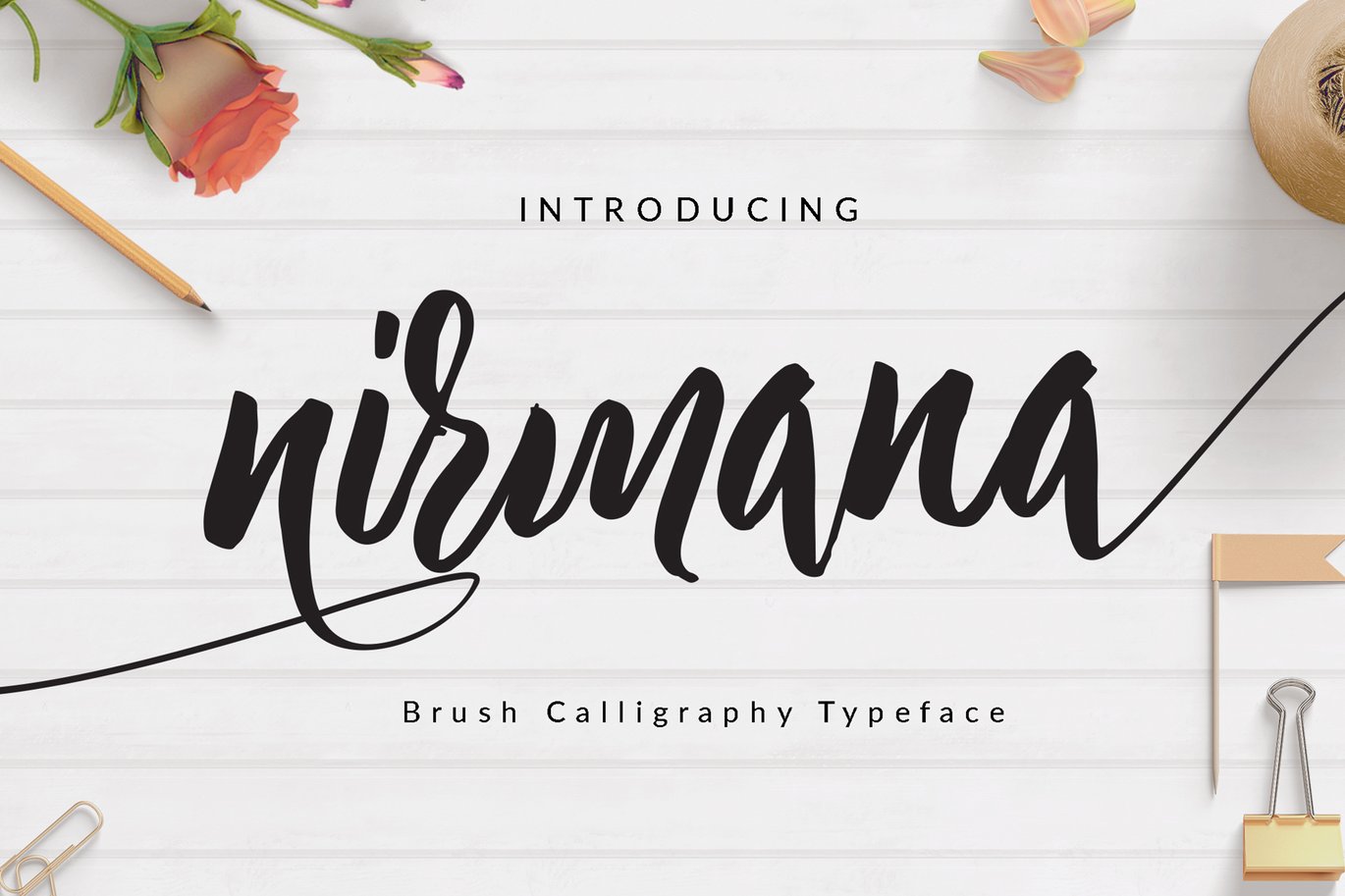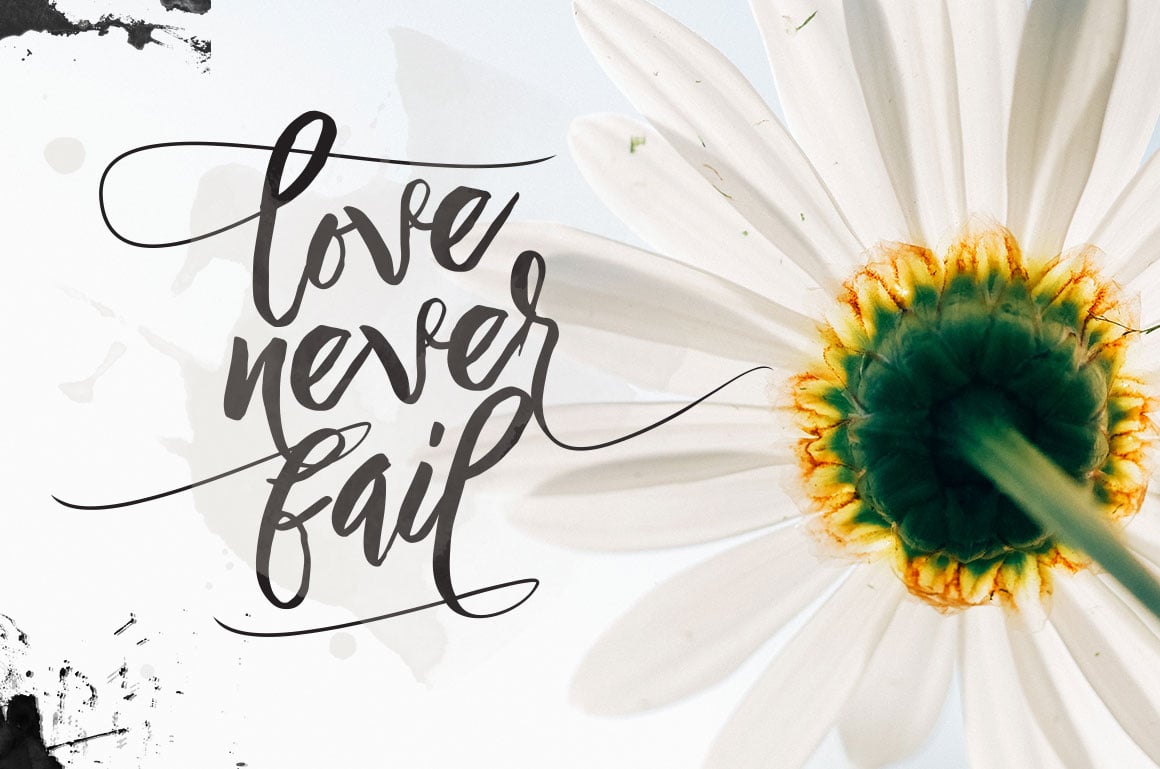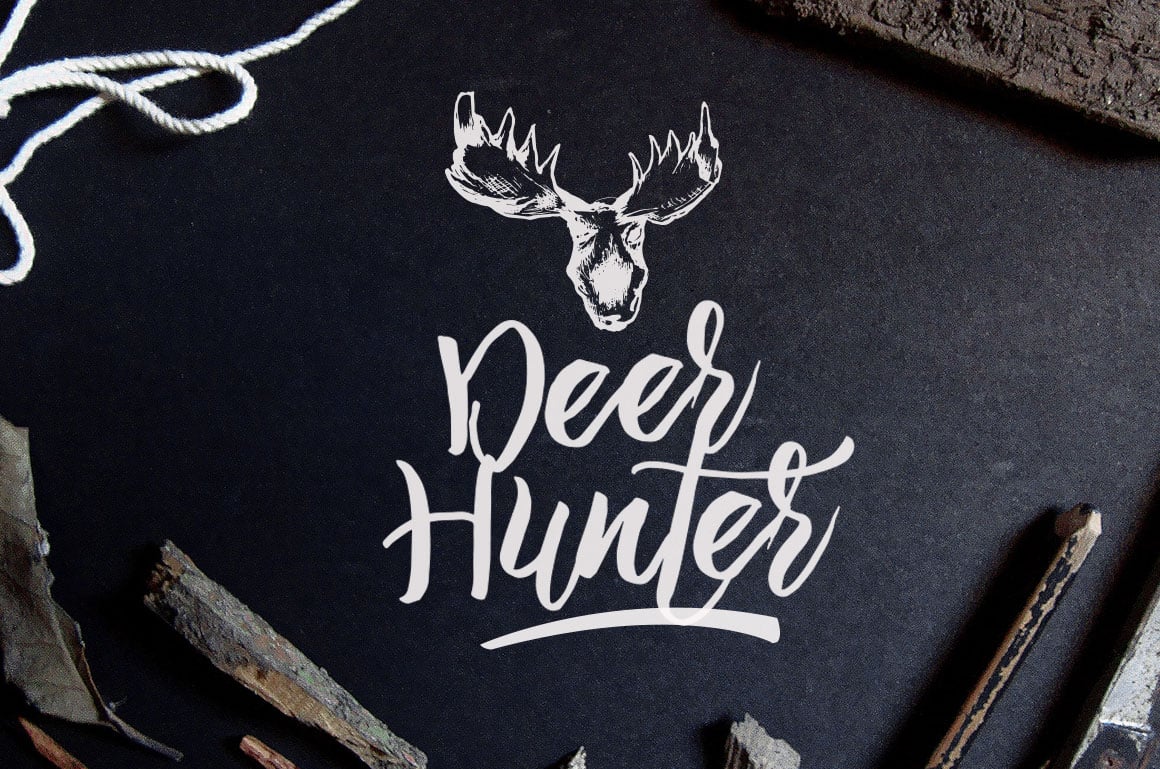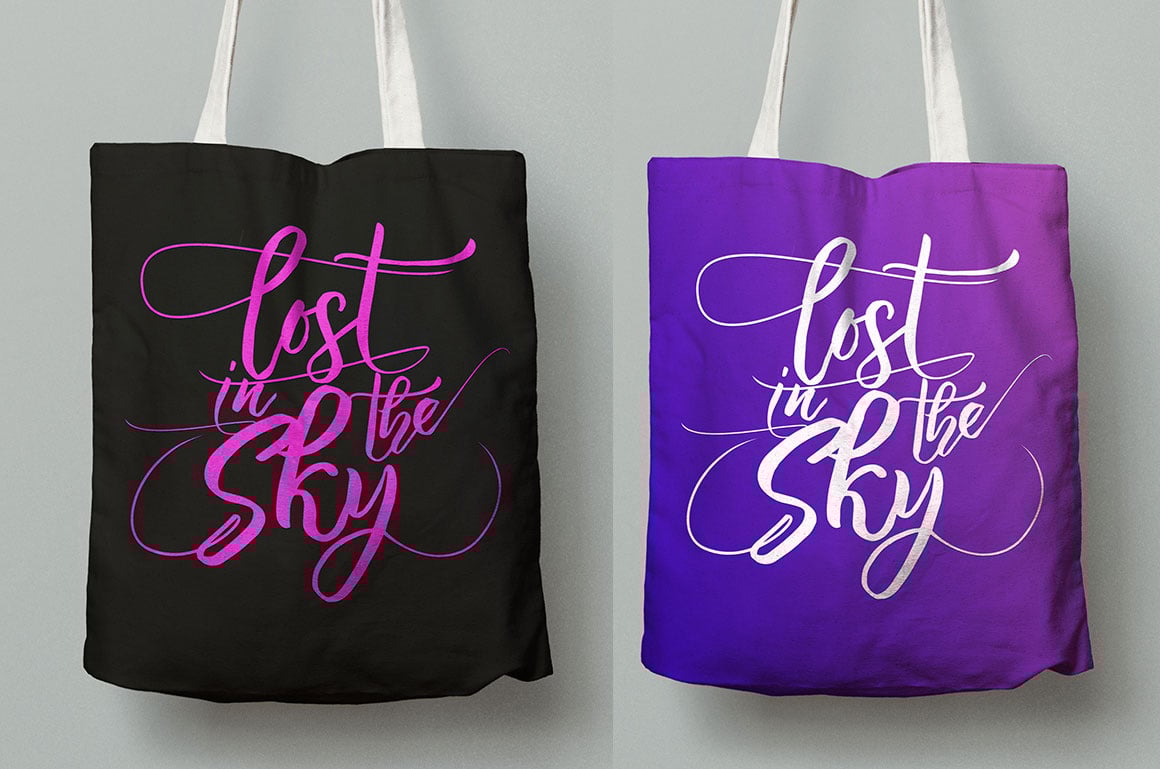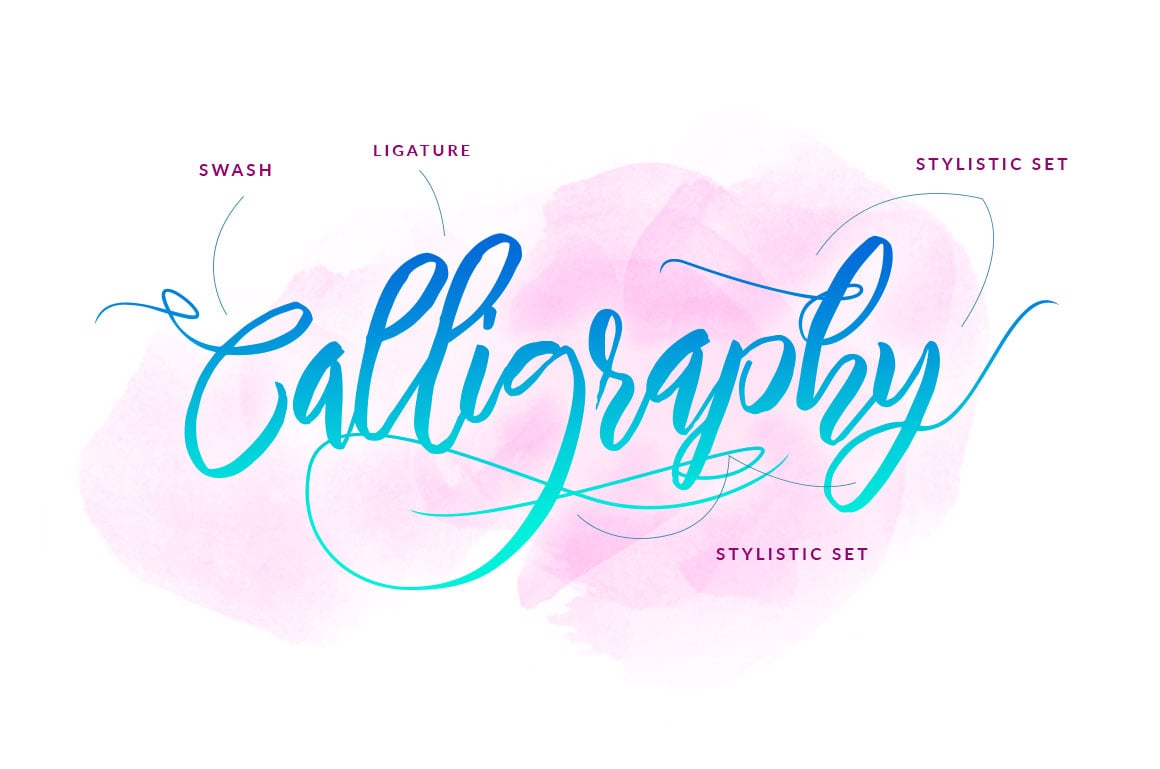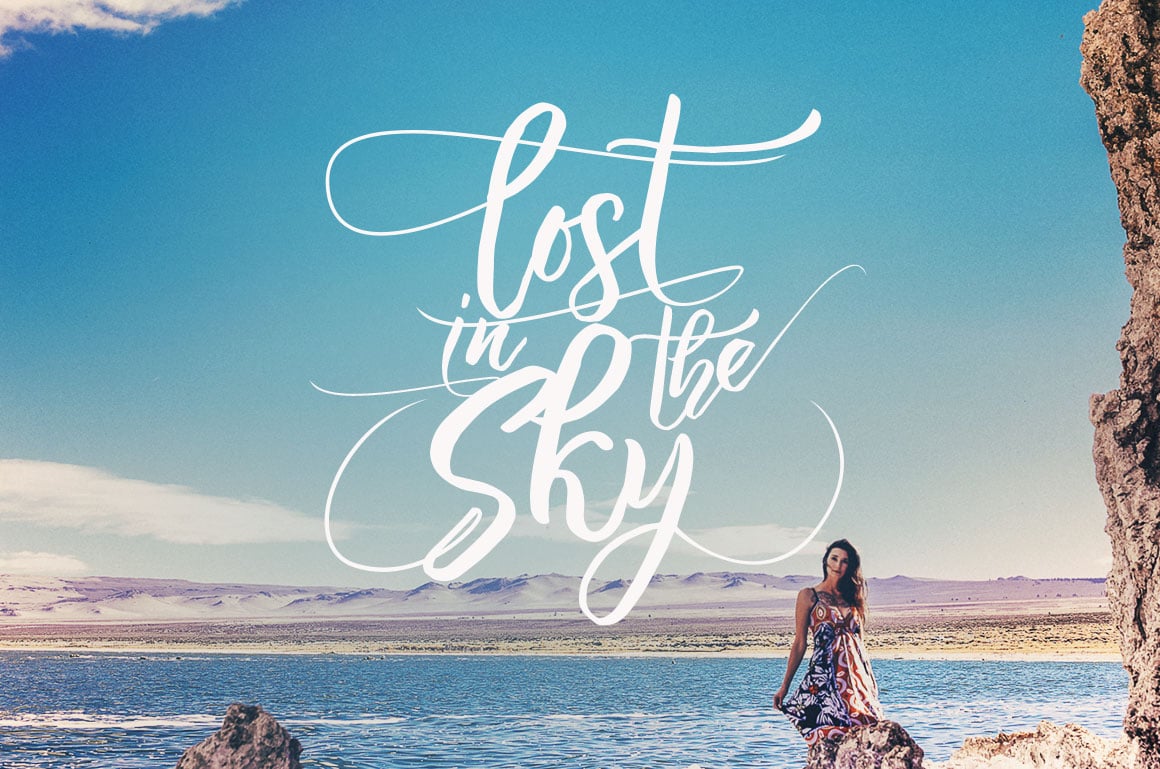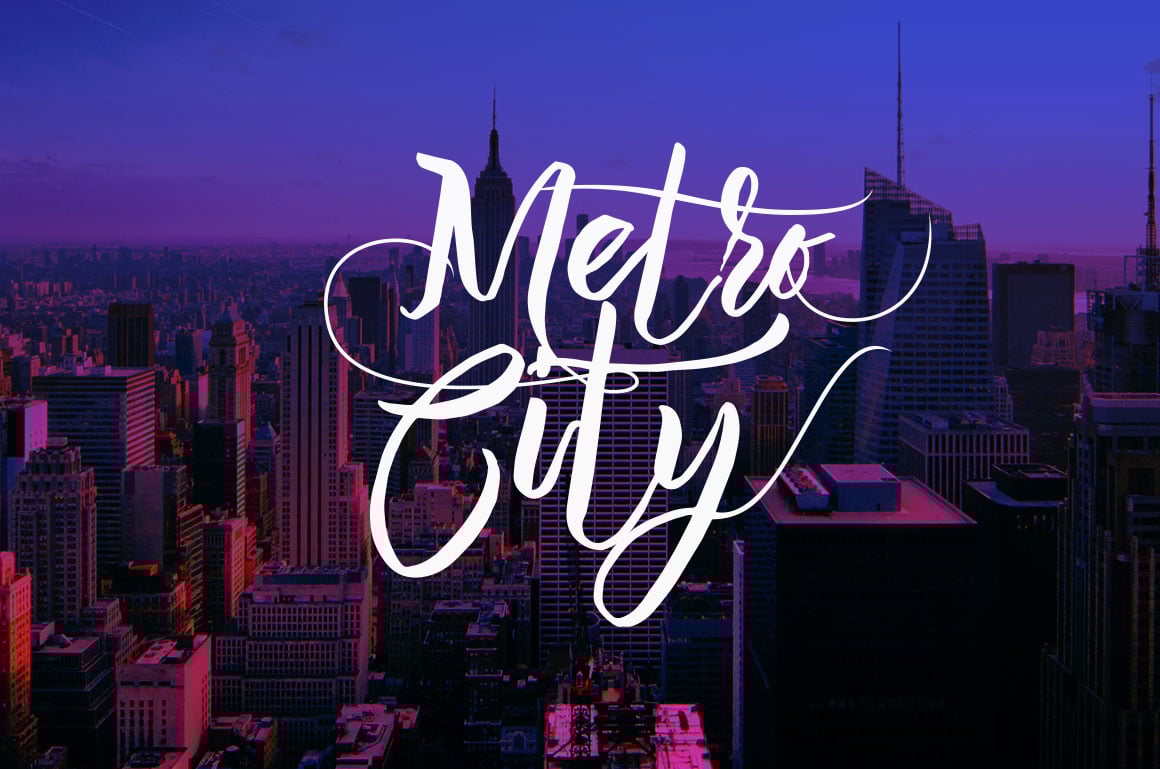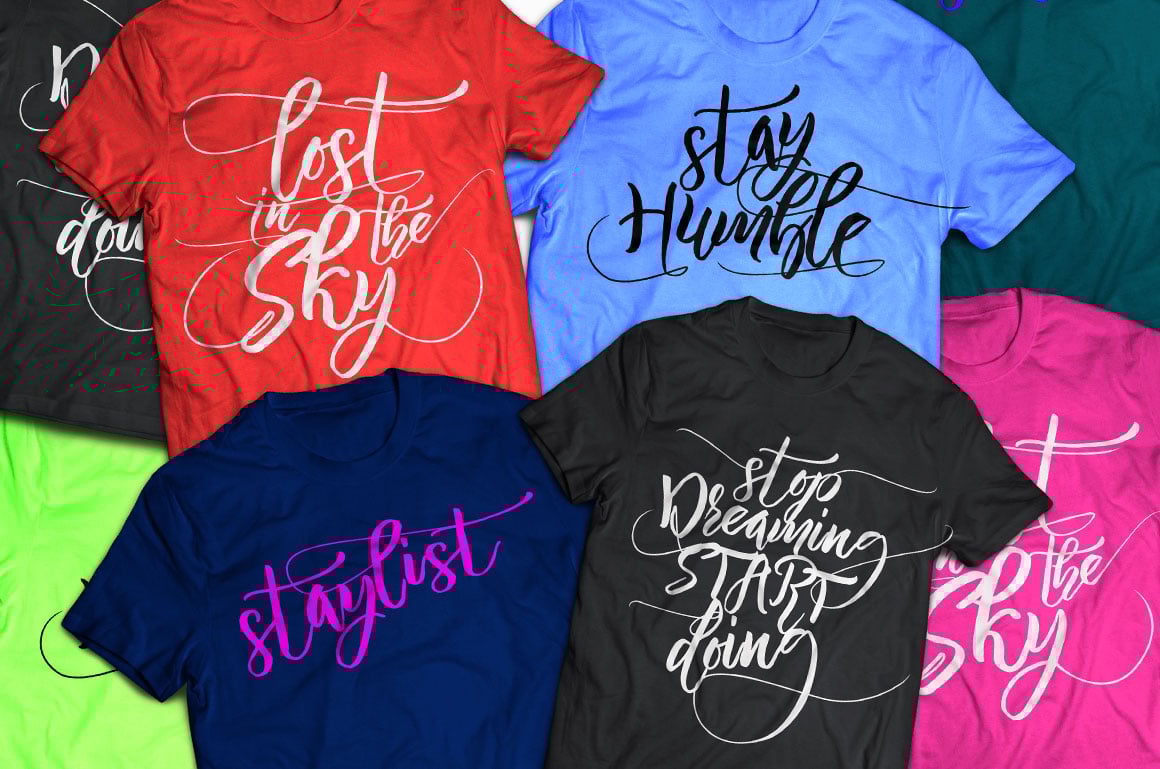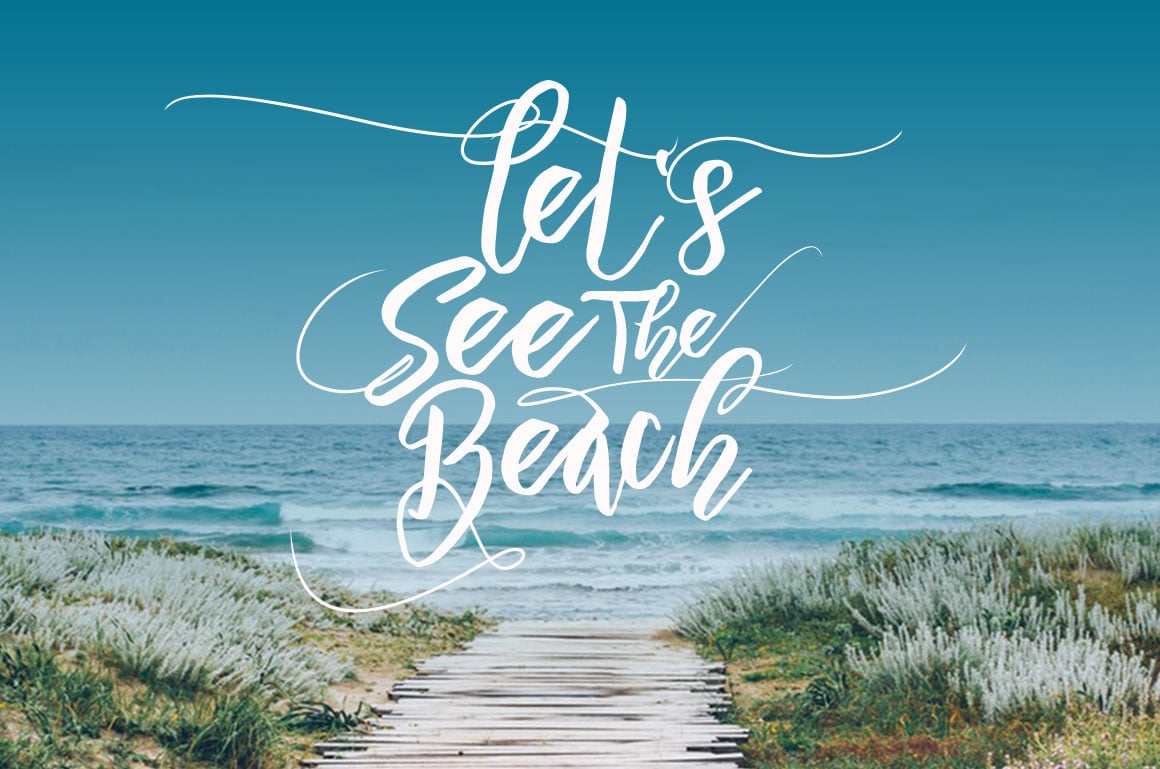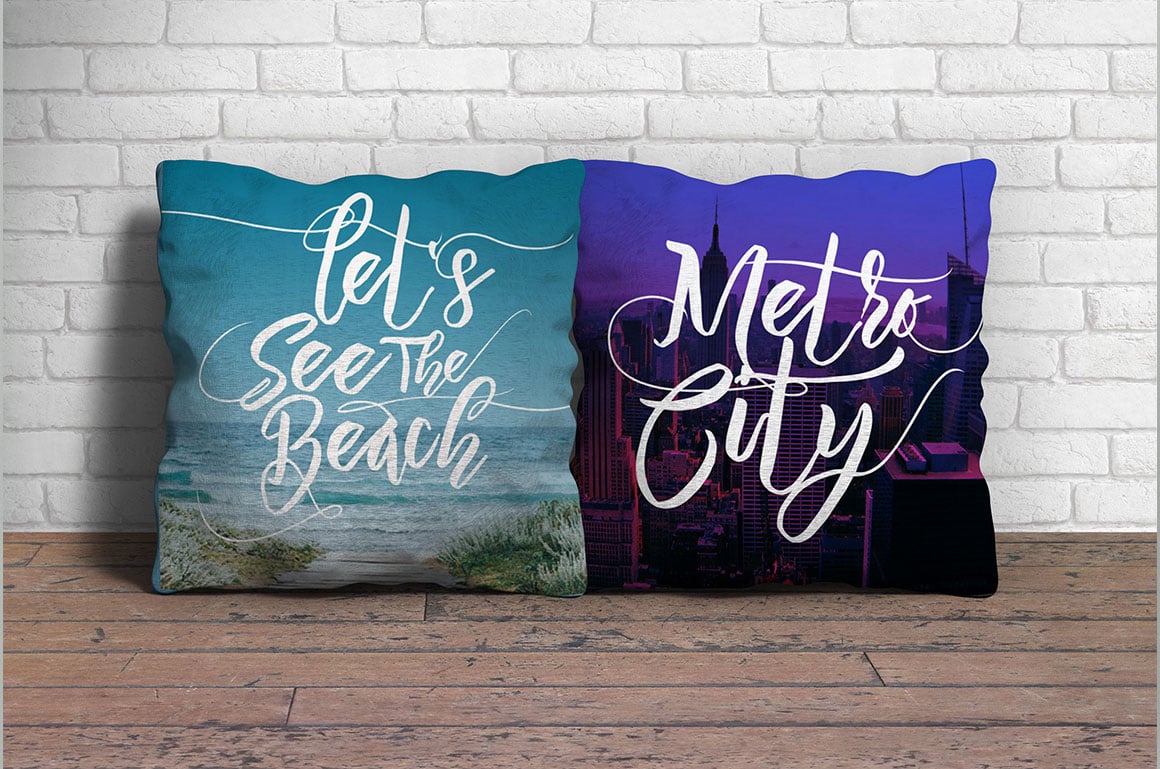
Nirmana Brush Font Wedding
Nirmana Calligraphy Typefaces
is a hand brushed calligraphy, which was created to meet the needs of your next design project. Nirmana, Can used for various purposes. such as the title, signature, logo, correspondence, wedding invitations, letterhead, signage, labels, newsletters, posters, badges, etc.
Nirmana features 326 glyphs, with tons of alternate characters. The pack can be accessed in full by any crafter or designer, without the requirement for extra design software, COMPATIBLE WITH SILHOUETTE & CRICUT DESIGN SPACE
The Features of this fonts is: Swash, Standart ligatures, Stylistic Sets, initial and terminal set